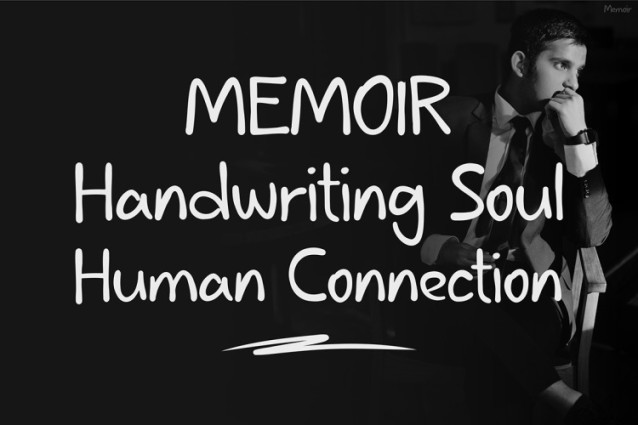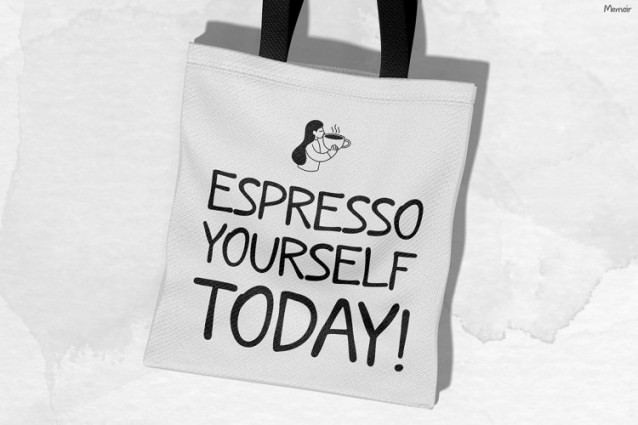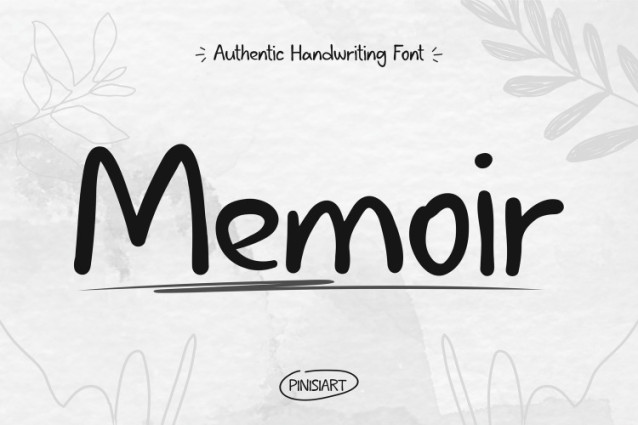
Memoir Hand Font is not just a font—it’s an experience. Each stroke feels natural, each curve flows like it was written by hand, giving your designs a warm and personal vibe. Instead of feeling digital and cold, Memoir shines with an authentic touch, making every word feel alive and genuine.
This font blends simplicity with charm, making it versatile for both casual quotes and professional branding. It captures the beauty of handwriting while staying clean and easy to read. That’s why it instantly adds depth, personality, and storytelling to any project you create.
Handwriting Font Memoir is designed for creators who value authenticity and human connection in their work. If you’re a social media influencer, this font gives your posts a friendly, eye-catching look. For business owners and brands, Memoir adds charm to packaging, logos, café menus, tote bags, and more.
It’s also perfect for bloggers, journaling enthusiasts, teachers, and event designers who want their projects to feel closer, warmer, and more relatable. Wedding planners and stationery designers will appreciate its personal touch for invitations, thank-you notes, or love quotes.
Beyond that, graphic designers can use Memoir to build unique posters, digital ads, or product mockups that instantly catch attention. Even students and hobbyists who simply want to make their school projects or scrapbooks look stylish will enjoy how easy it is to use. Memoir adapts to any setting, big or small, without losing its personality.